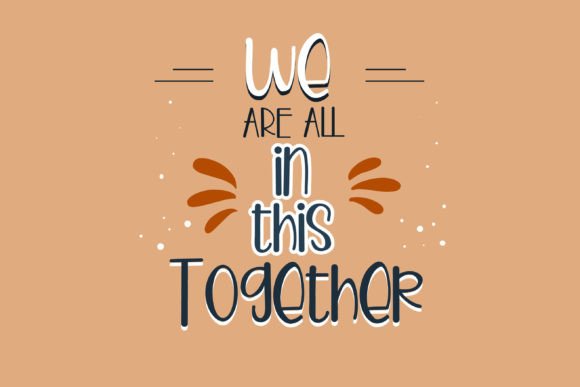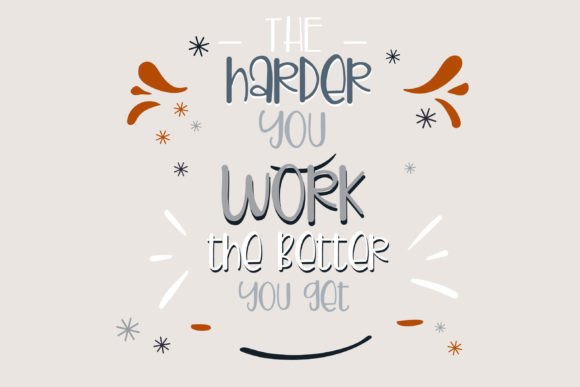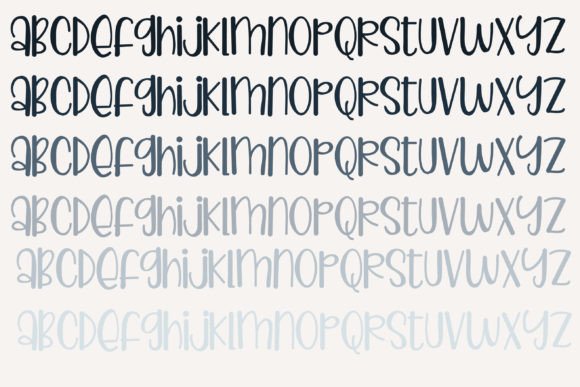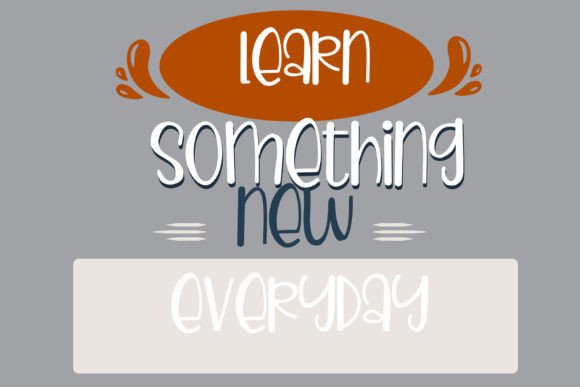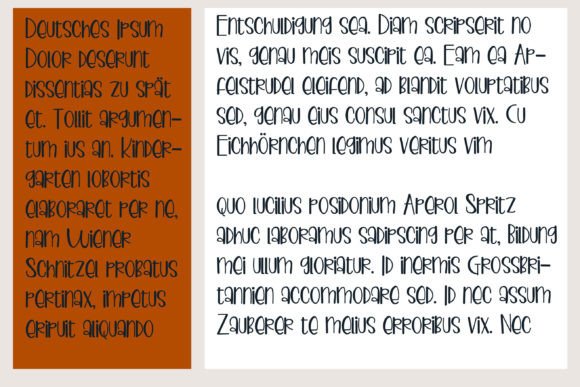
About Butter Toast Font
Butter Toast Font Download brings you a cheerful and playful handwritten typeface designed to add warmth and positivity to your creative projects. With its natural handwritten flow and delightful character, this font is perfect for anyone who wants their work to radiate friendliness and charm. Whether you’re designing for personal use or professional branding, Butter Toast provides a balance of casual elegance and joyful energy.
The style of Butter Toast captures the spontaneity of real handwriting, giving your text an approachable and authentic look. Its rounded forms and consistent strokes ensure readability while maintaining a handcrafted appearance. This makes it ideal for designers looking to create pieces that feel genuine and expressive.
Joyful and Versatile Design
Butter Toast is not just another handwritten font. Its joyful curves and lighthearted style make it versatile enough to be used across a wide range of design needs. You can confidently use it in:
Greeting cards and wedding invitations
Personalized quotes and wall art prints
Branding for cafés, bakeries, or lifestyle businesses
Social media graphics and blog headers
Stickers, t-shirts, and product packaging
Digital designs for websites, banners, and more
No matter the medium, Butter Toast adds a touch of positivity and charm that makes your project stand out.
Because of its smooth kerning and thoughtful spacing, Butter Toast delivers a polished look in both short text and longer phrases. This flexibility ensures that your message always appears clear and engaging.
Enhance Your Creative Projects
What makes Butter Toast special is its ability to bring joy into every design. Its playful and friendly appearance adds personality, making your projects memorable and engaging. Whether you’re building a logo for a creative brand, designing fun invitations, or creating digital posts for social media, Butter Toast ensures that your designs feel approachable and unique.
Pair this font with a modern sans-serif for clean, stylish designs, or combine it with bold display fonts to create contrast and visual impact. Its versatility makes it a reliable choice for both personal and professional projects.
This typeface captures the warmth of handwritten lettering while ensuring smooth readability across platforms. From branding and invitations to social media and crafts, Butter Toast adapts beautifully to any design.